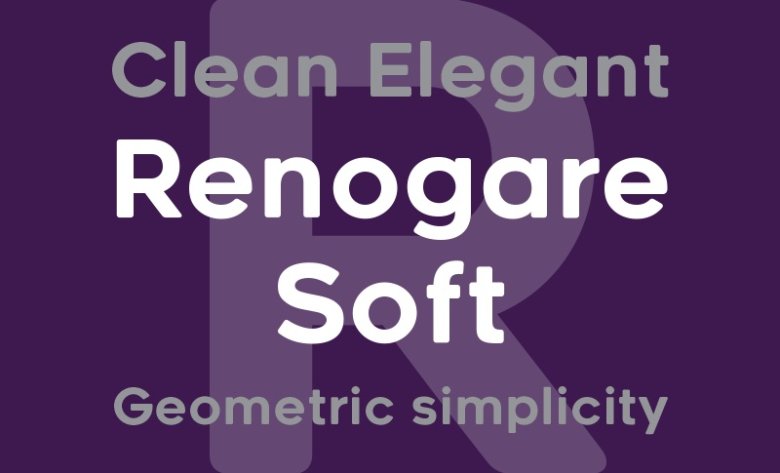
Renogare Soft Font
Renogare Soft is a clean and elegant geometric sans serif typeface. It is a version of Renogare font with soft edges.
Renogare Soft Sans Serif Font